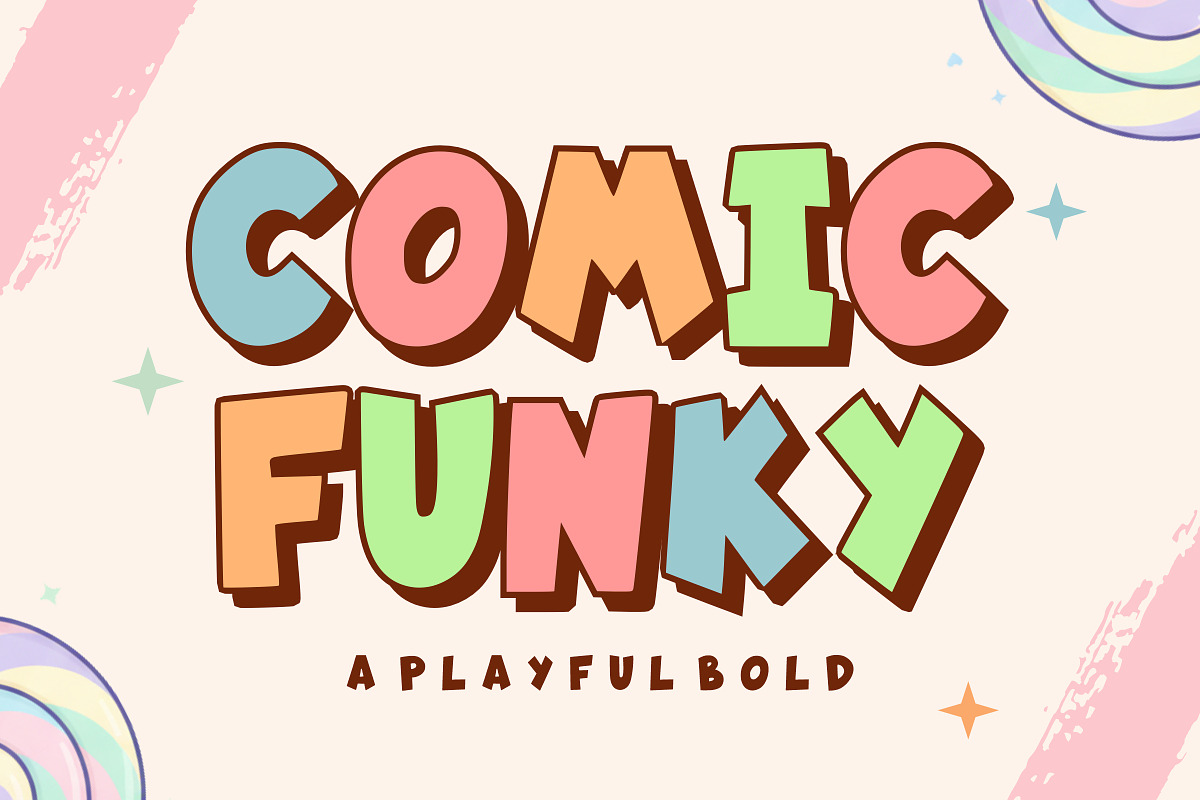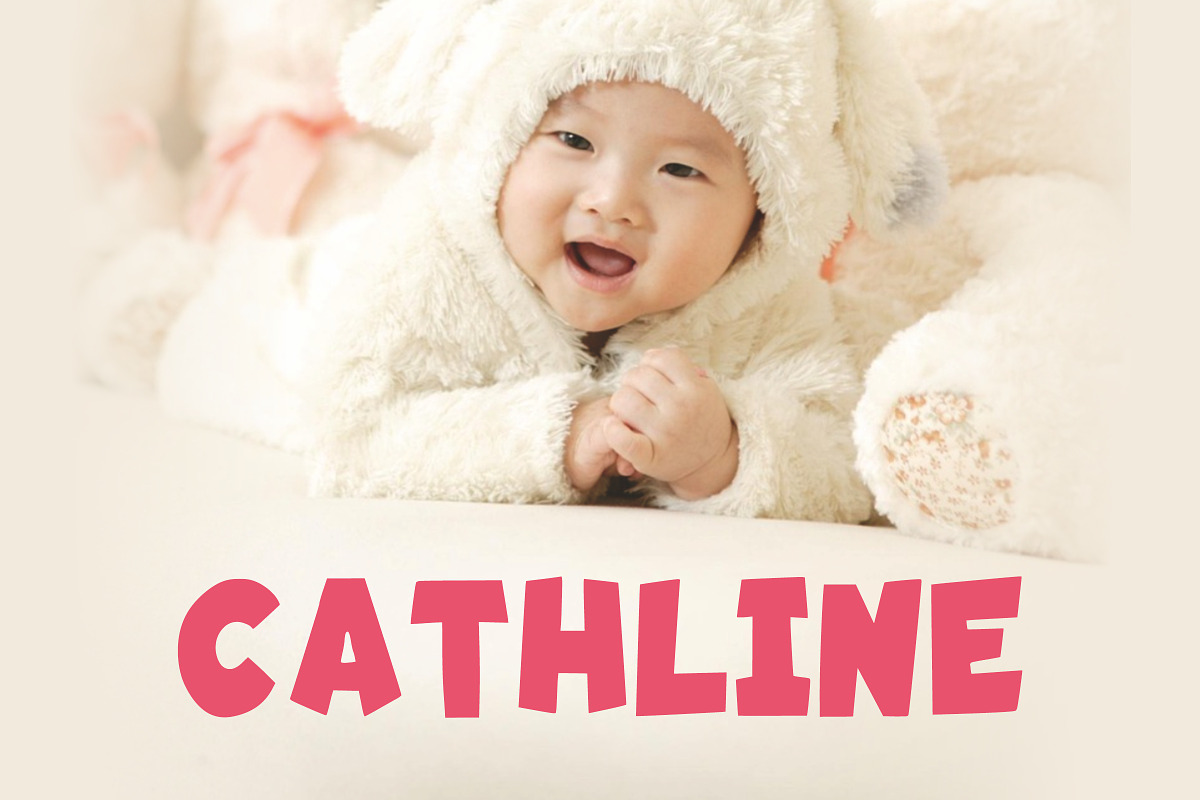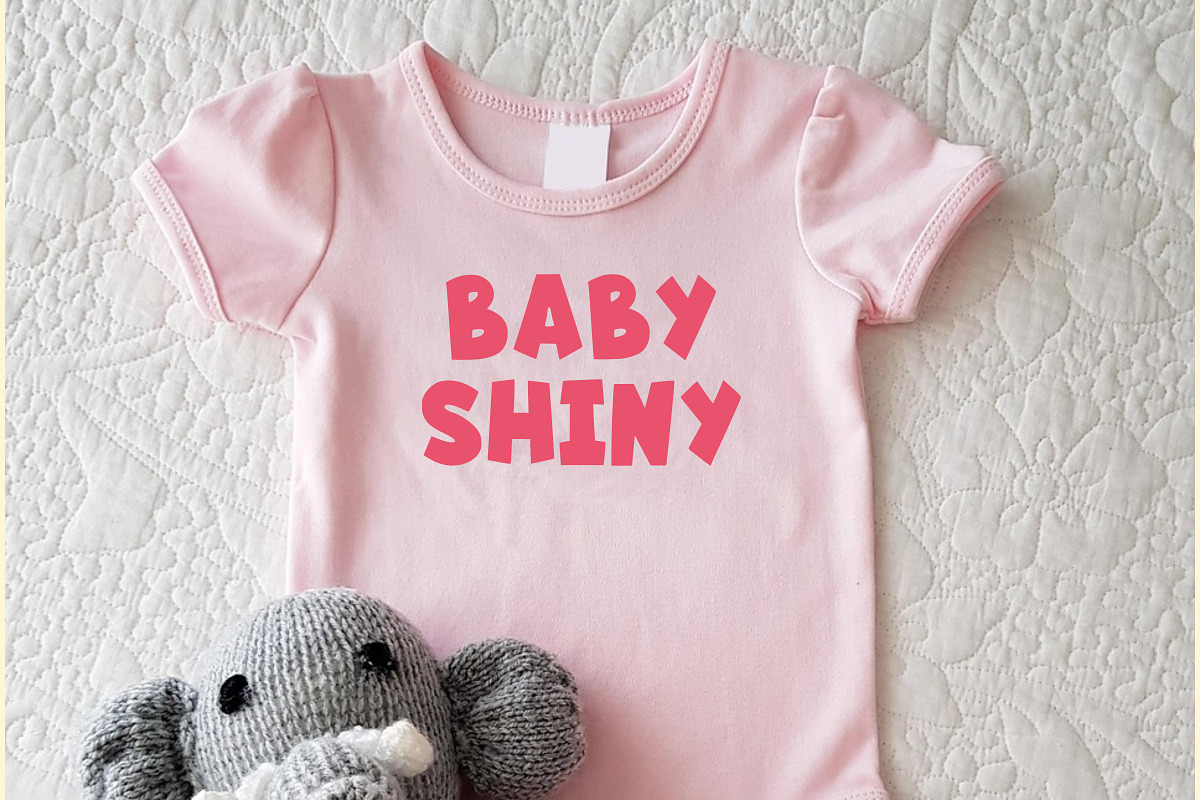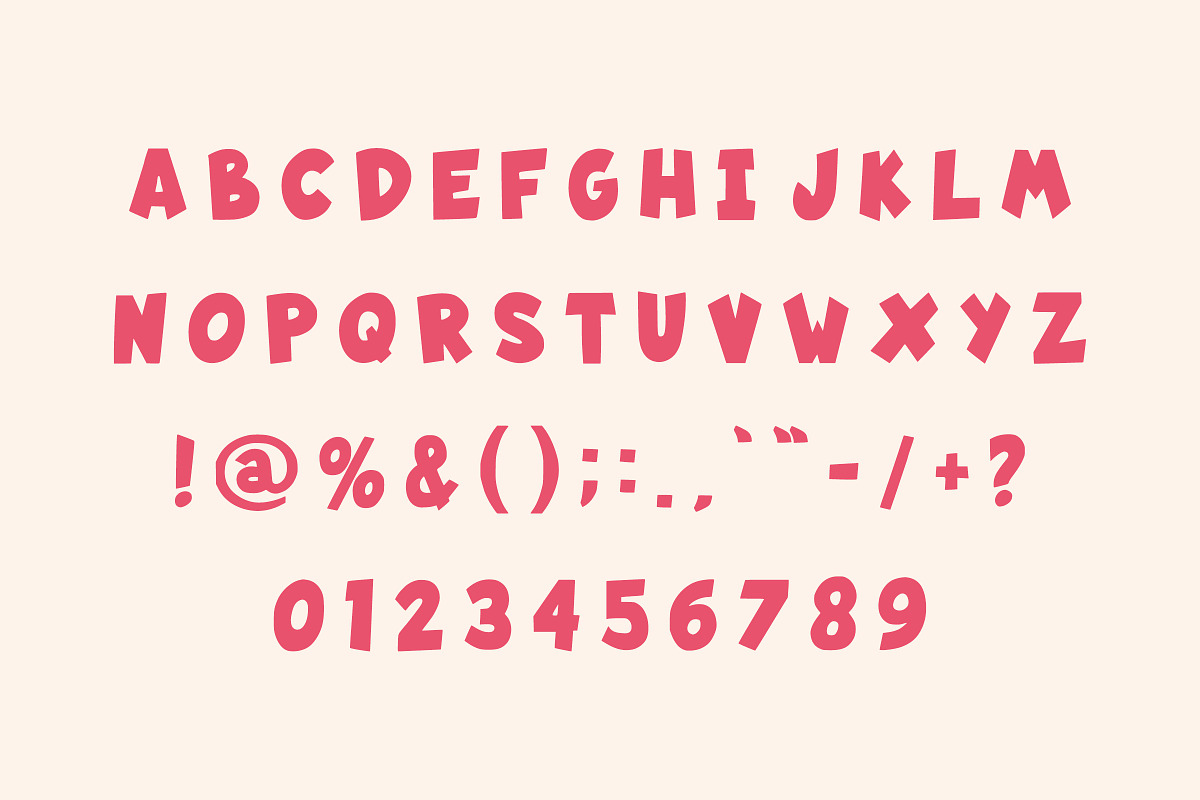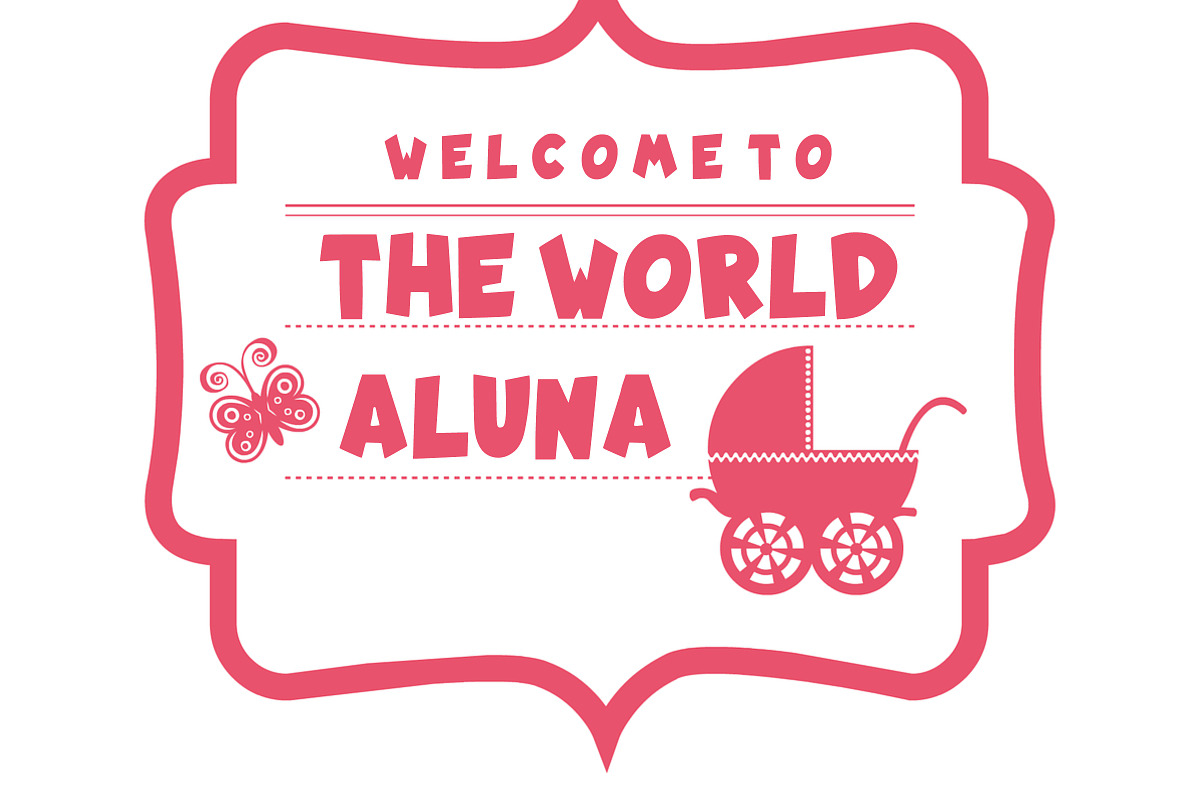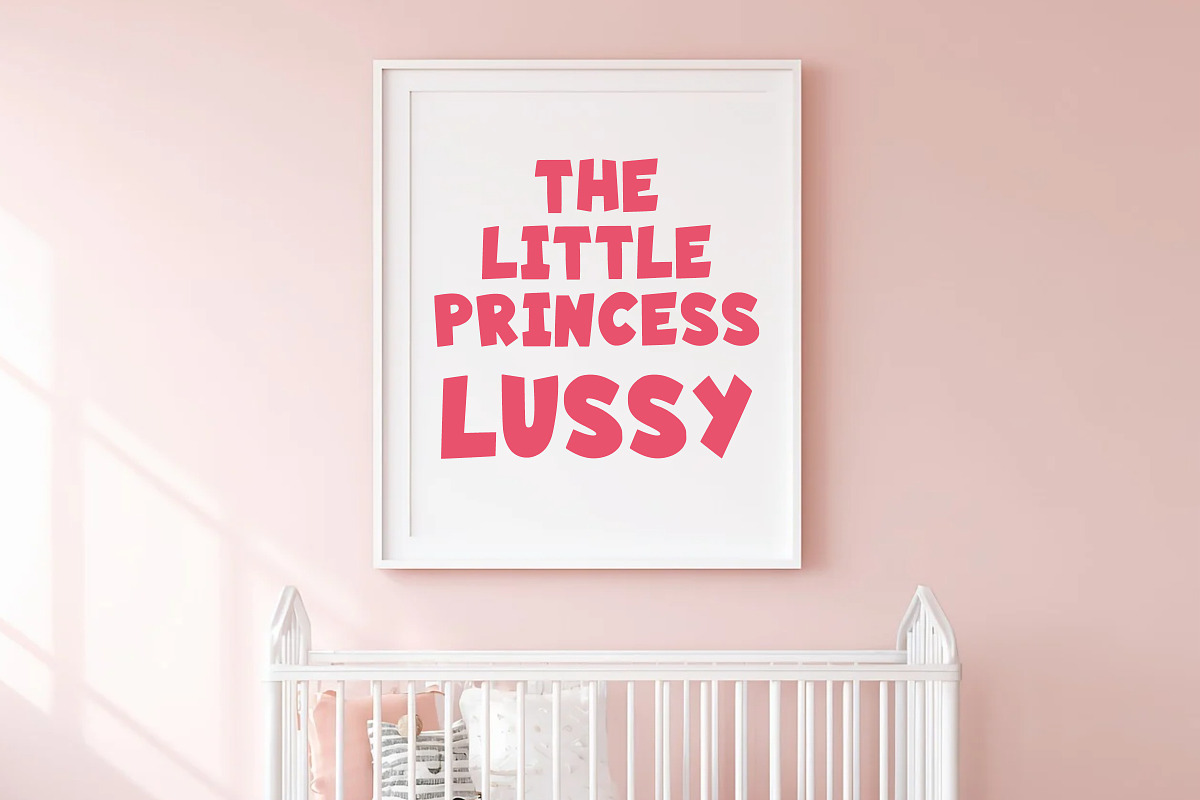
Comic Funky
Comic Funky is a bold and playful display font inspired by comic books and fun cartoon lettering. With its chunky shapes, rounded edges, and cheerful personality, this font is perfect for kids projects, comic designs, posters, branding, packaging, and social media graphics.
Its funky and energetic style makes every design stand out while keeping a friendly and approachable feel. Comic Funky works great for headlines, logos, stickers, t-shirts, book covers, classroom materials, birthday invitations, and more.